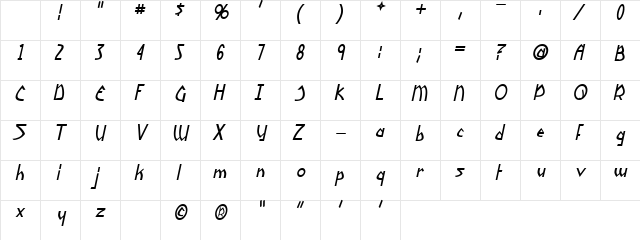
Complete Yoshitoshi Italic glyph index. Displaying only characters natively supported by Yoshitoshi Italic font.
Yoshitoshi is a composed and adaptable typeface that performs quietly and consistently across a wide range of design contexts. The slanted form adds forward momentum and visual energy.
Pro Tip: Use Yoshitoshi for emphasis, pull quotes, and subheadings where its slanted energy can add rhythm to the layout.